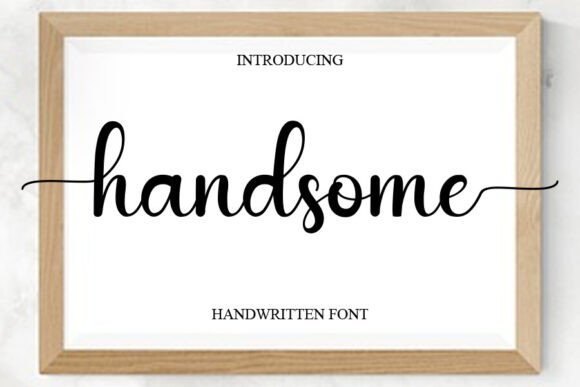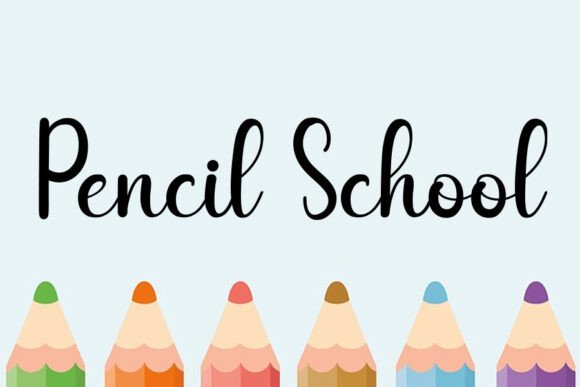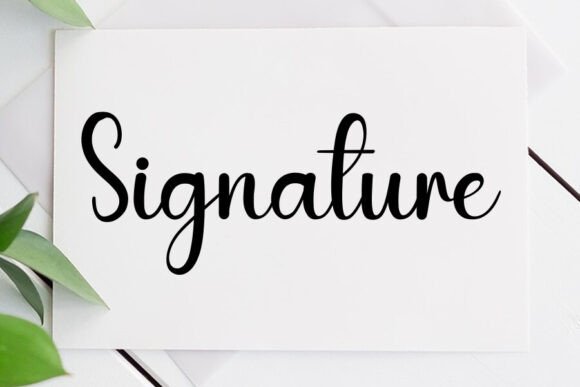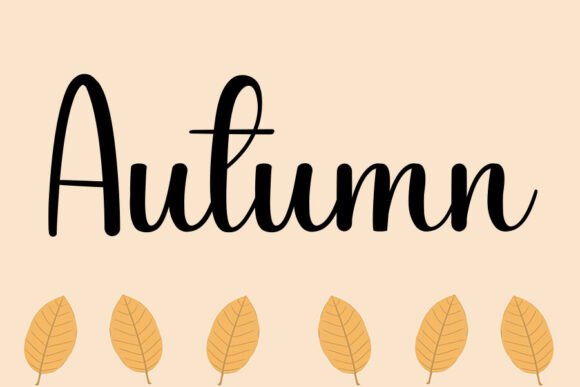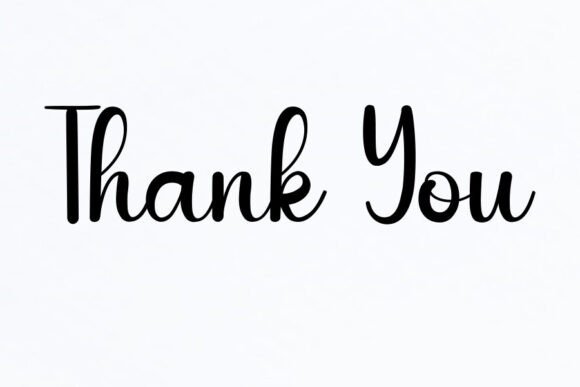
Have you ever found yourself staring at a blank page, a blank canvas, or a blank screen, desperately searching for the perfect font to bring your design to life? We’ve all been there. It’s the moment when you know exactly what you want, but can’t quite put your finger on it. That’s where the Handsome Font comes in – a sweet and cursive handwritten font that’s guaranteed to add a touch of elegance and whimsy to your projects.
This gorgeous font is more than just a pretty face; it’s a valuable tool for designers looking to add a personal touch to their work. Whether you’re creating a wedding invitation, a fashion lookbook, or a marketing campaign, the Handsome Font is the perfect addition to make your design stand out from the crowd.
Handsome Font Key Features
- Unique Characteristics: Hand-crafted, elegant, and sophisticated font with unique letterforms and subtle flair
Handsome Font Review
Hands down, I have to say that Handsome Font is a great choice for any project where you want to add a touch of elegance and sophistication. ✨ The font is beautifully designed, with smooth lines and a refined look that’s perfect for titles, headings, and even body text. It’s also highly legible, making it a great choice for long-form content.
Some of the standout features of Handsome Font include:
- ✨ Beautifully designed characters with a classic feel
- ✨ Highly legible, even at small font sizes
- ⚠️ The font may not be the best choice for projects that require a lot of bold or italic text, as the bold and italic styles can look a bit clumsy
Overall, I’m really impressed with Handsome Font. It’s a great choice for any project where you want to add a touch of elegance and sophistication. With its beautiful design and highly legible characters, it’s sure to make a great impression. Just be aware of the limitations mentioned above, and you’ll be all set to create some amazing designs!
Tips for Getting the Most Out of Handsome Font
For a more polished look, pair Handsome Font with a sans-serif font for body text.
Use Handsome Font for headings and titles to add a touch of elegance.
Handsome Font is ideal for:
- Luxury branding and marketing materials
- High-end event invitations and promotional materials